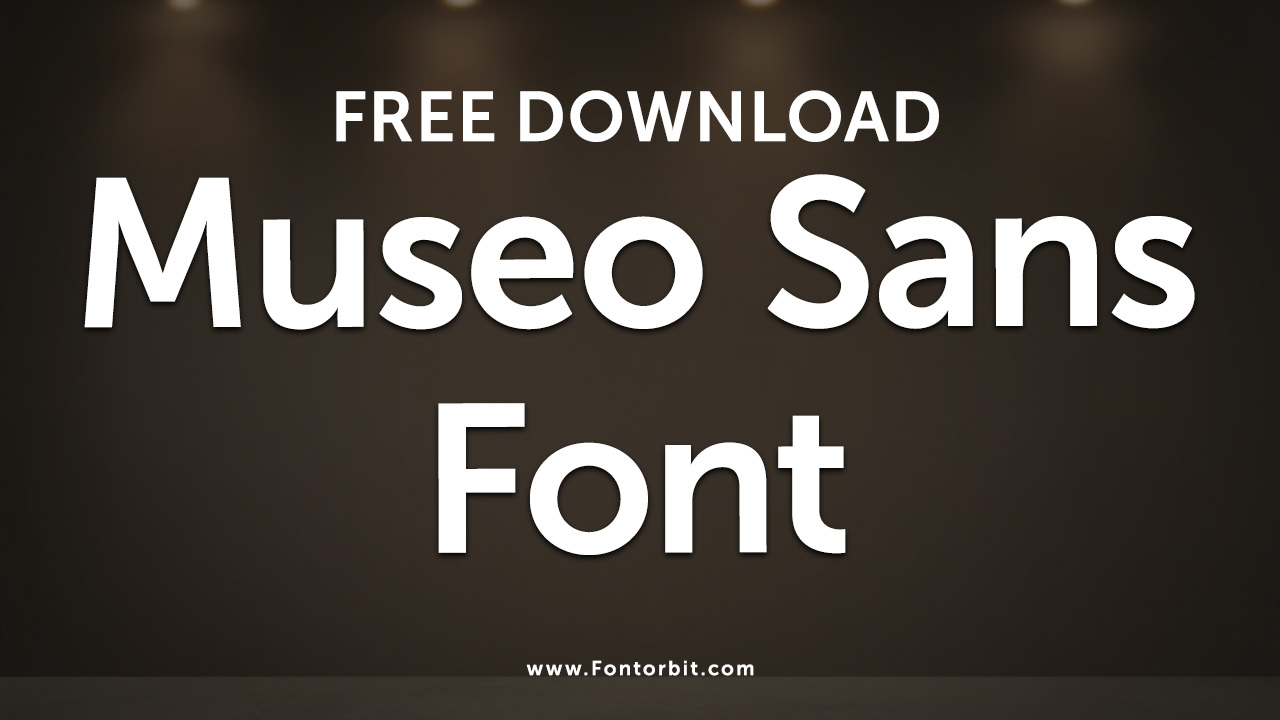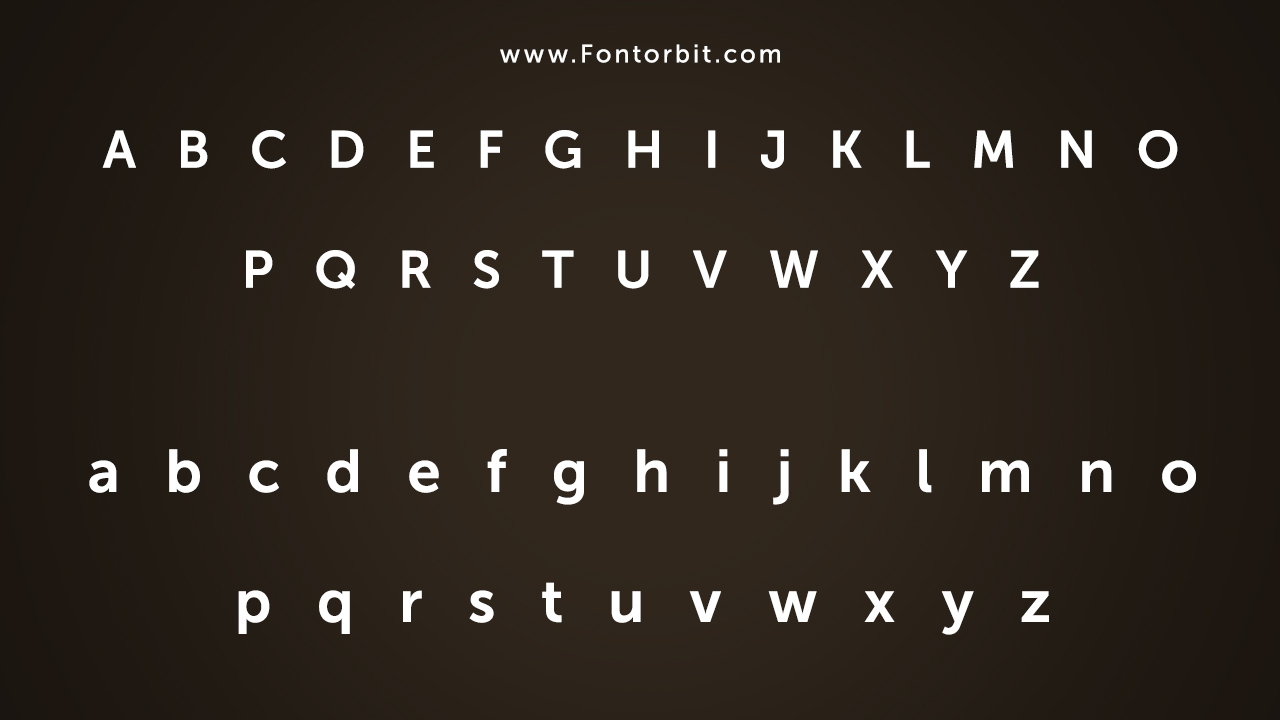
Museo Sans is a versatile and stylish sans-serif typeface designed by Jos Buivenga and released by Exljbris Font Foundry. As a companion to the quirky Museo typeface, Museo Sans offers a clean and modern aesthetic, a popular choice for a wide range of design applications.
Museo Sans stands out with its distinct design features and multiple weights. It’s available in five weights with matching italics, making it adaptable for various typographic needs. The font family includes:
Museo Sans is widely used in both digital and print media for its clean, legible, and modern look. Its flexibility and distinctive traits make it suitable for various applications, including:
- logo design
- Branding and Corporate Identity
- Website Design
- Editorial Layouts
- Marketing Materials
- Presentations
- User Interfaces
- Advertising Campaigns
Museo Sans embodies a modern and versatile aesthetic with its unique design elements and range of weights. While it excels in various design contexts, it is particularly effective in professional and clean designs. Pair Museo Sans with other complementary fonts to achieve a balanced and polished look.
Museo Sans is ideal for a wide range of design projects, including corporate branding, web design, and marketing materials. Its versatility and legibility make it suitable for both digital and print media.
Museo Sans is unique for its modern and clean design, coupled with distinctive features like the shape of the “k.” Its range of weights and matching italics add to its versatility.
Use Museo Sans for its clean and modern appearance, particularly in professional and polished designs. Pair it with complementary fonts to enhance readability and visual appeal.
Museo Sans enhances brand identity with its contemporary and versatile design. It provides a modern look while ensuring readability and flexibility in various design contexts.